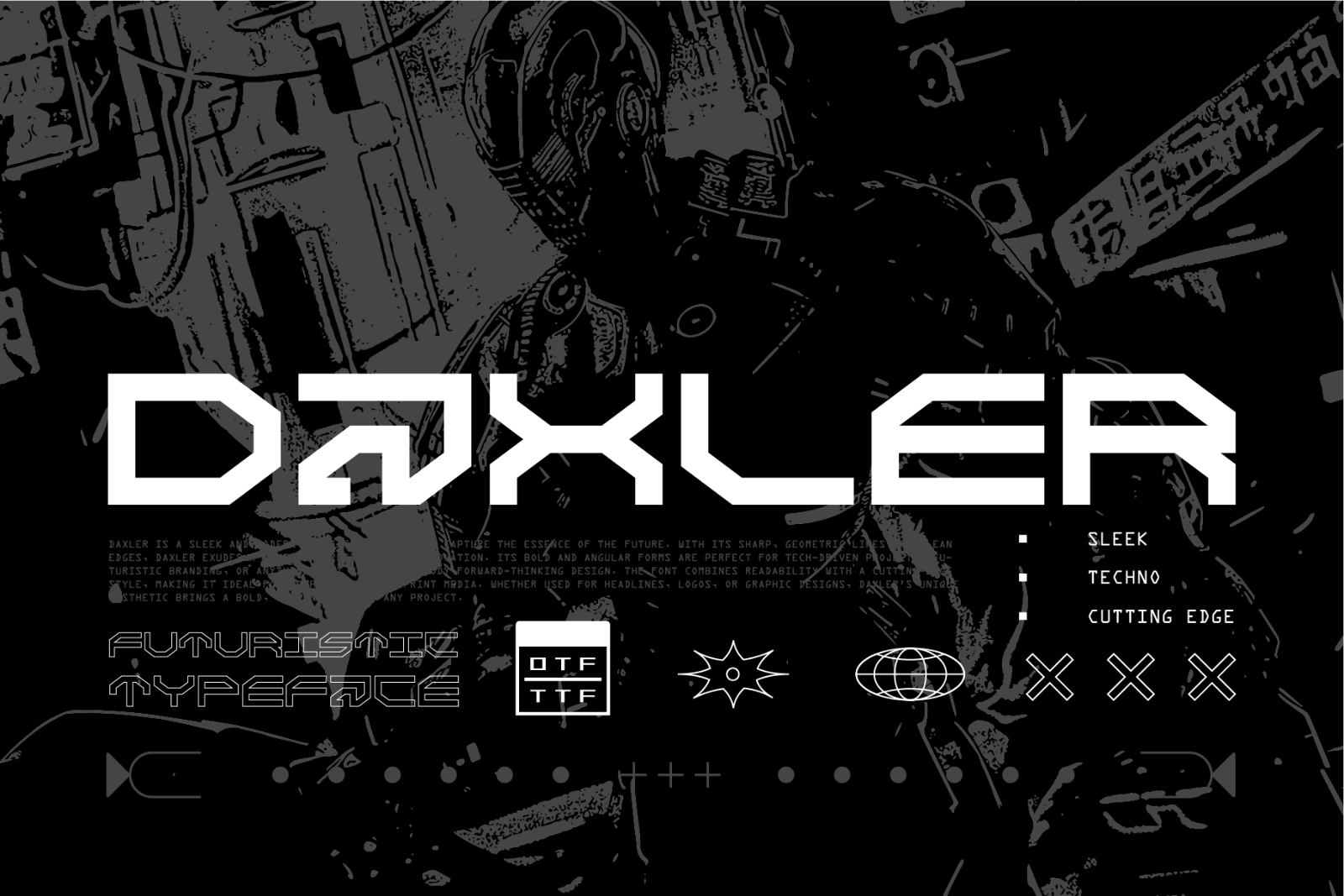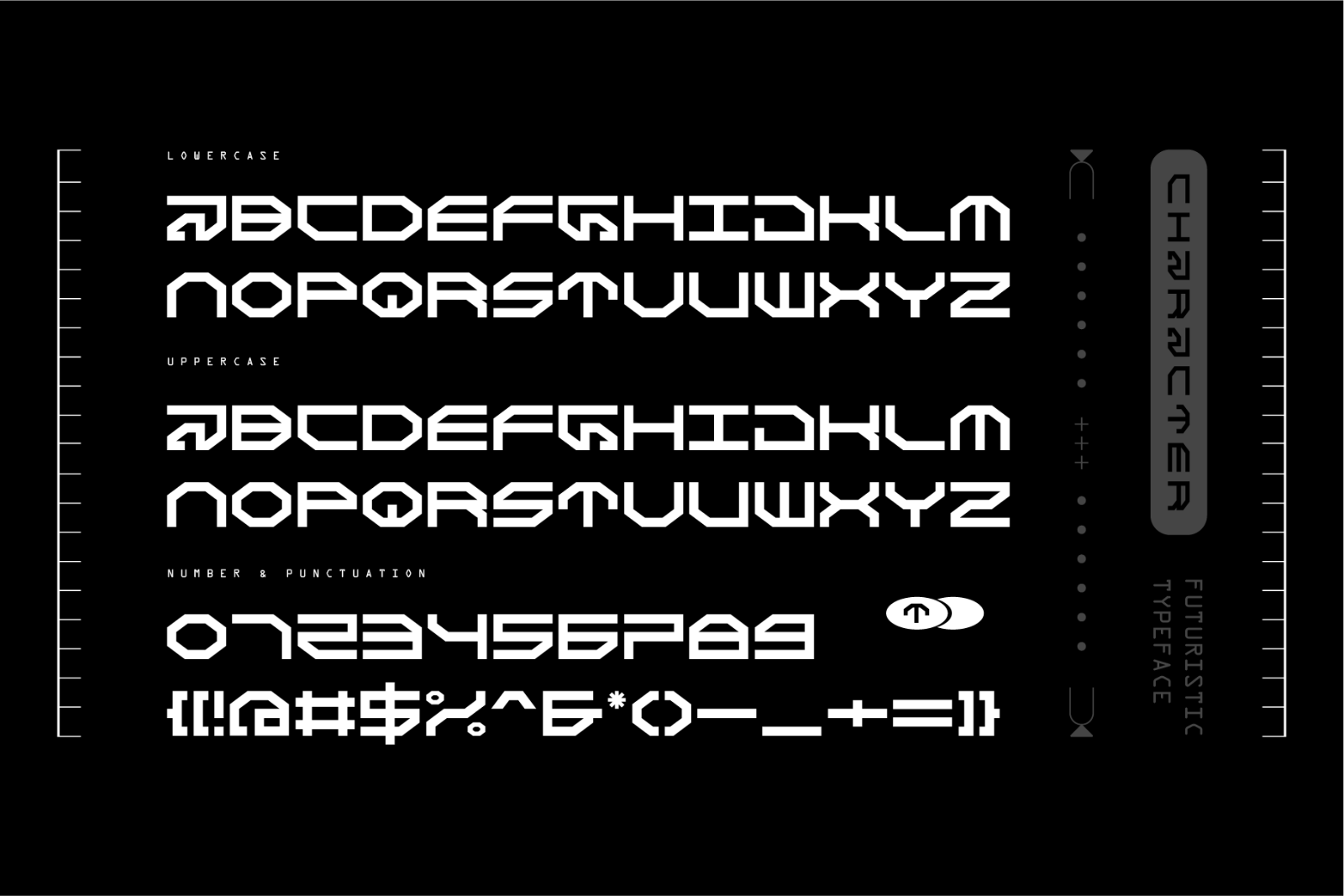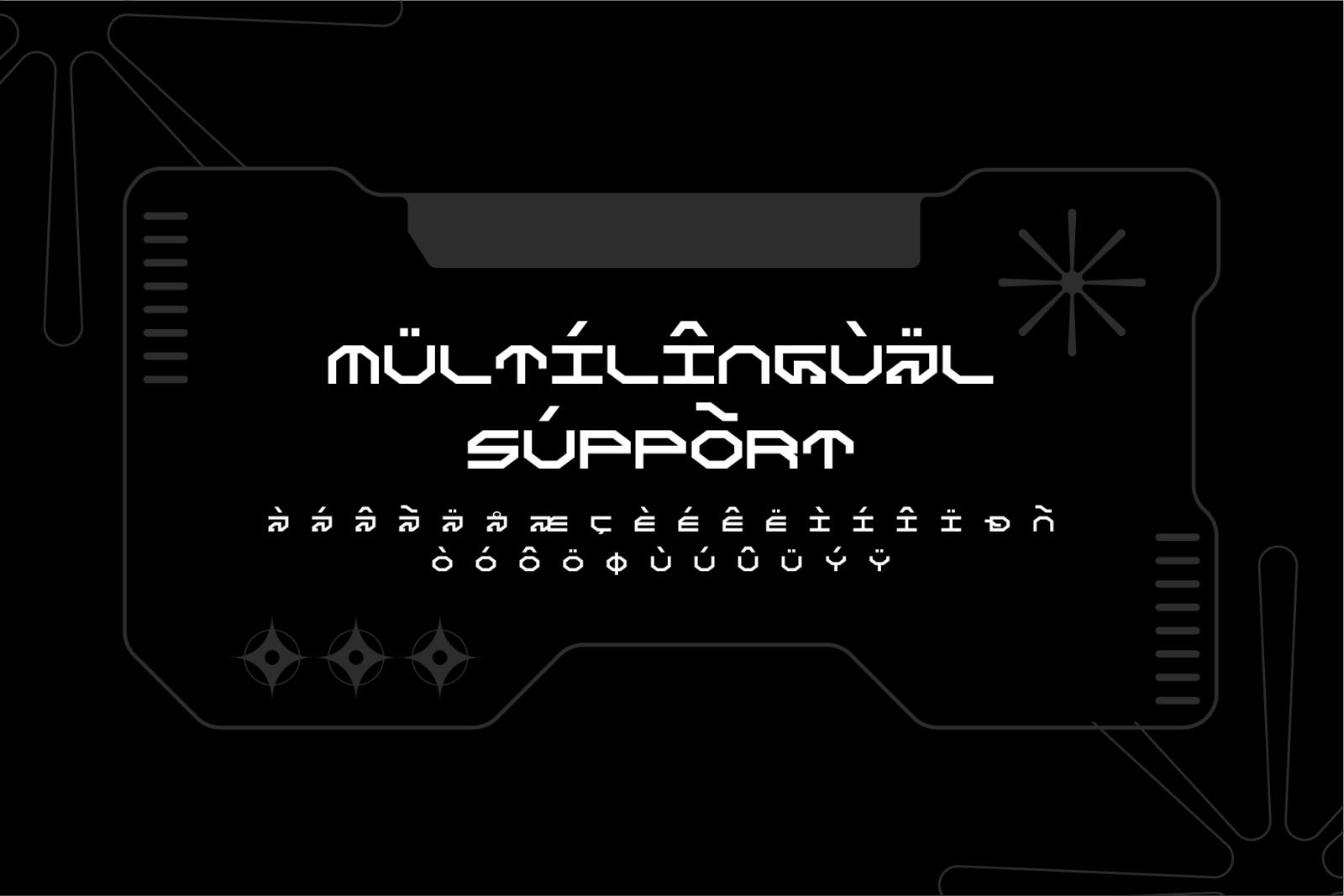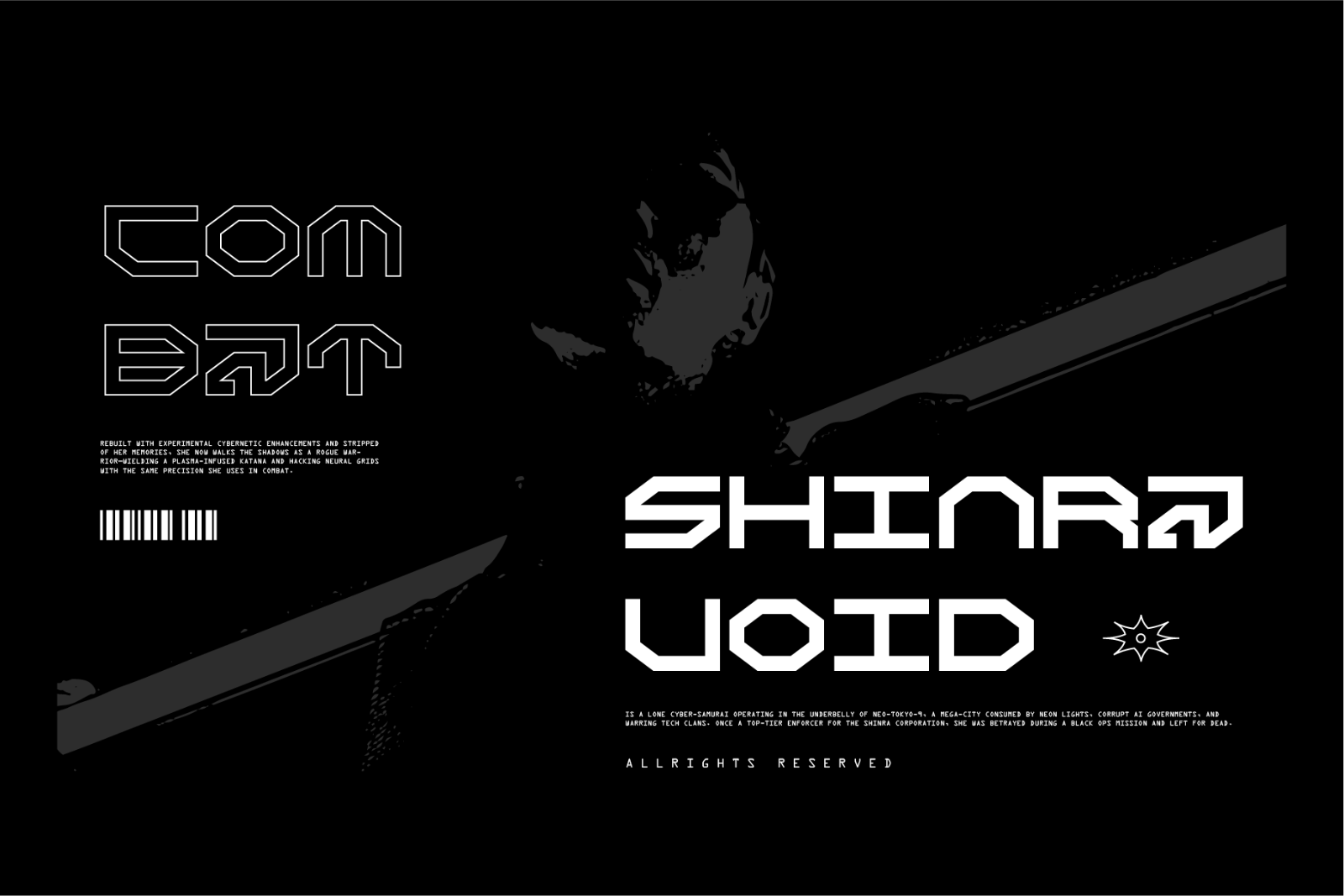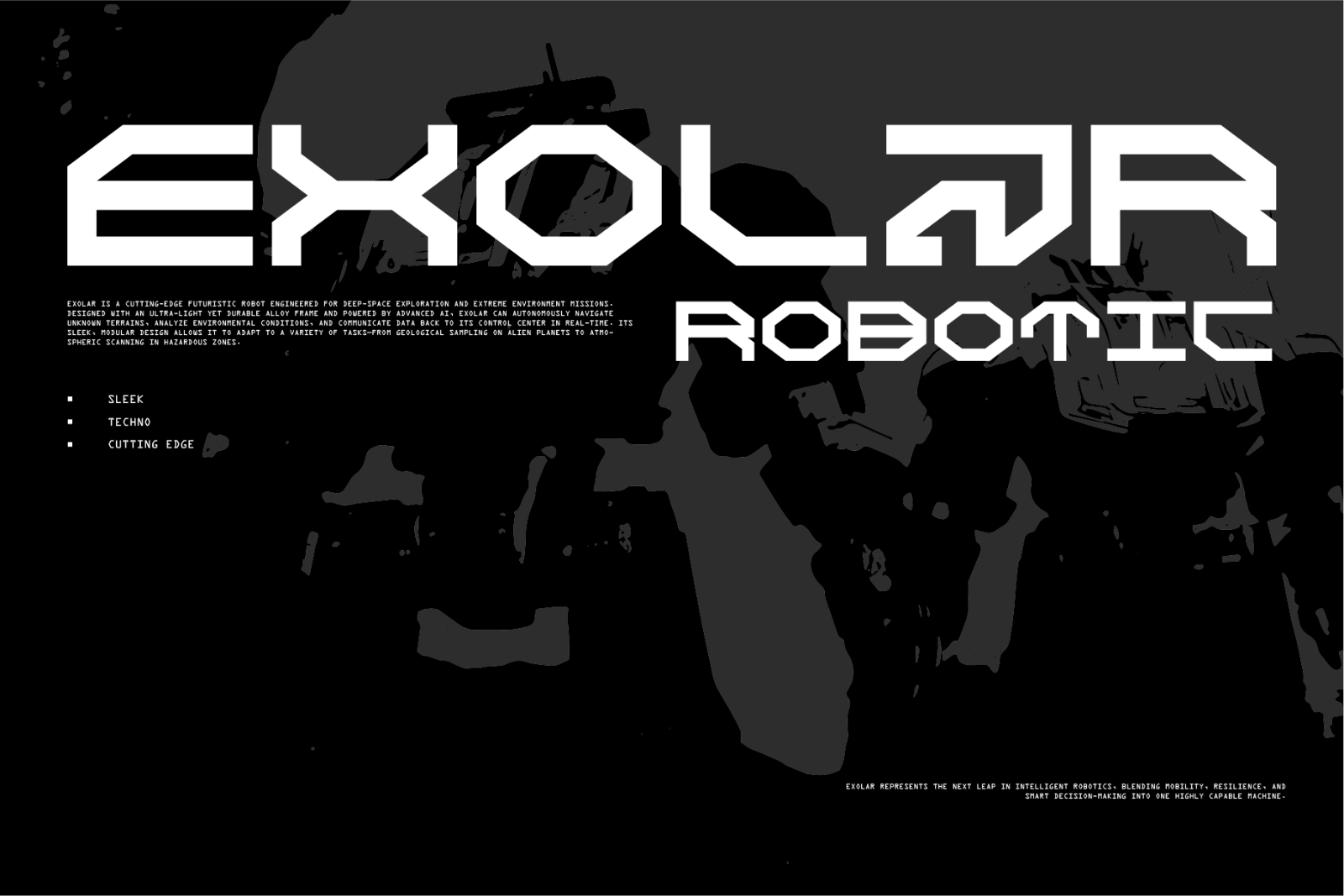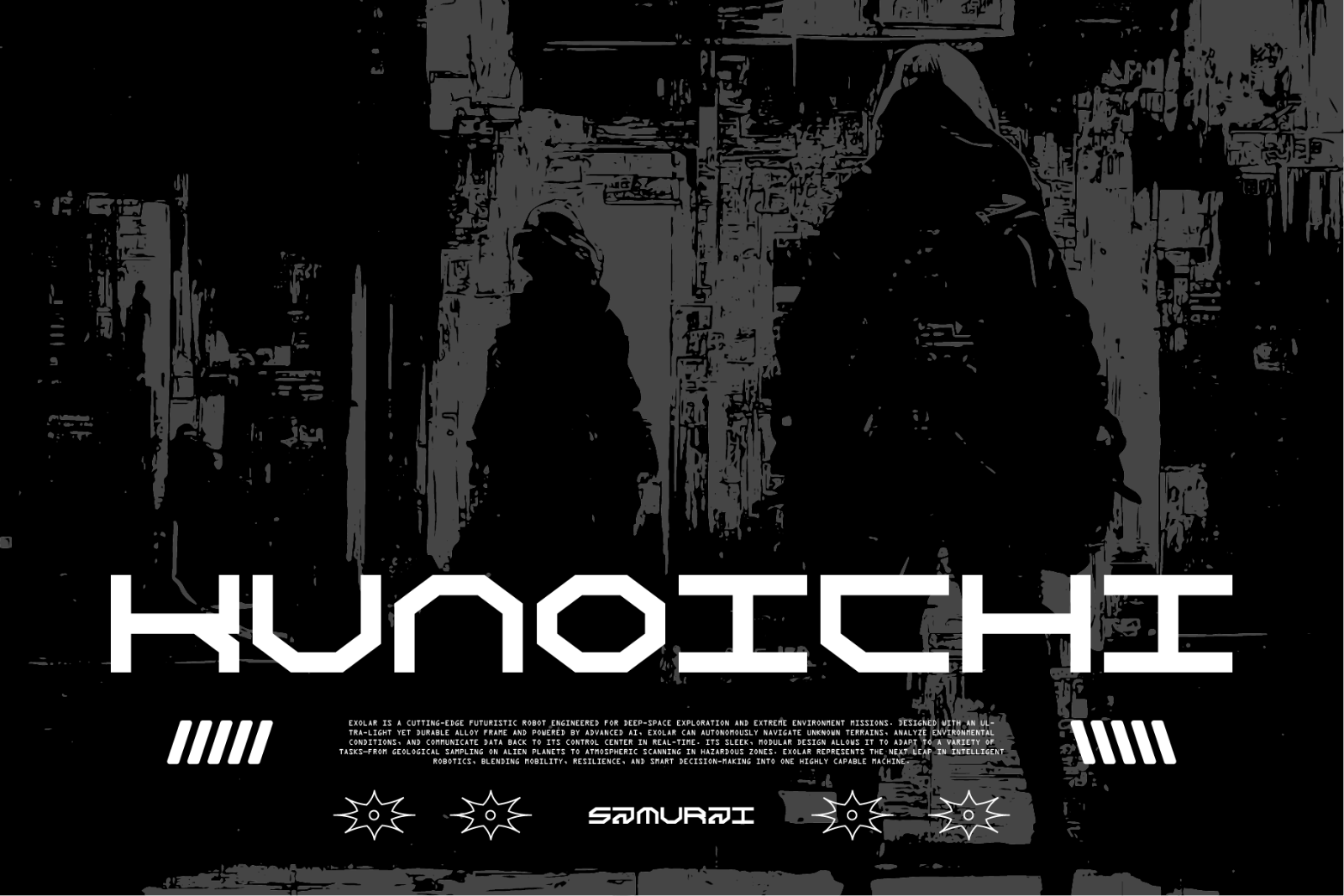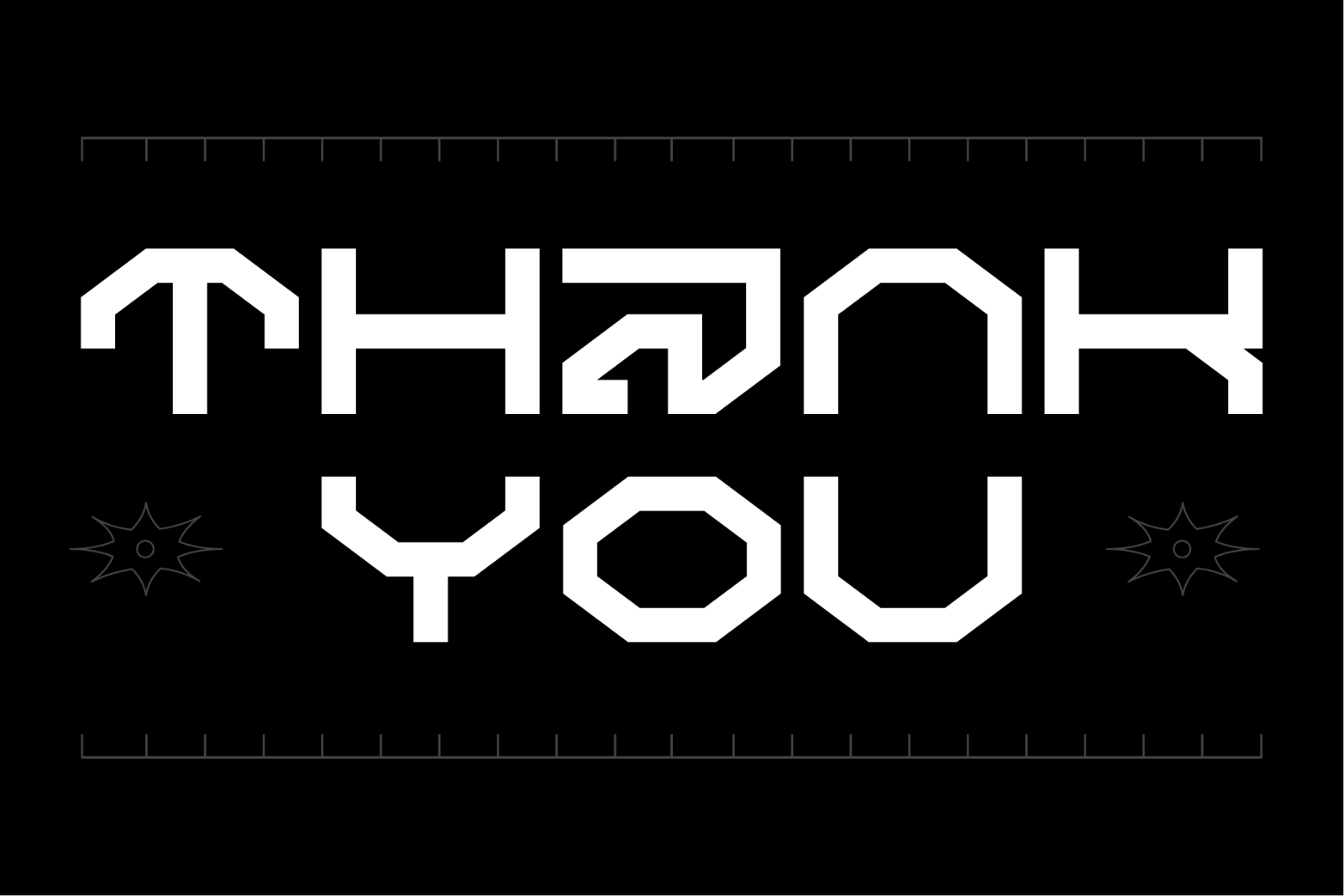
Daxler is a sleek and modern typeface designed to capture the essence of the future. With its sharp, geometric lines and clean edges, Daxler exudes a sense of precision and innovation. Its bold and angular forms are perfect for tech-driven projects, futuristic branding, or anything that seeks to embody forward-thinking design. The font combines readability with a cutting-edge style, making it ideal for both digital and print media. Whether used for headlines, logos, or graphic designs, Daxler's unique aesthetic brings a bold, modern touch to any project.